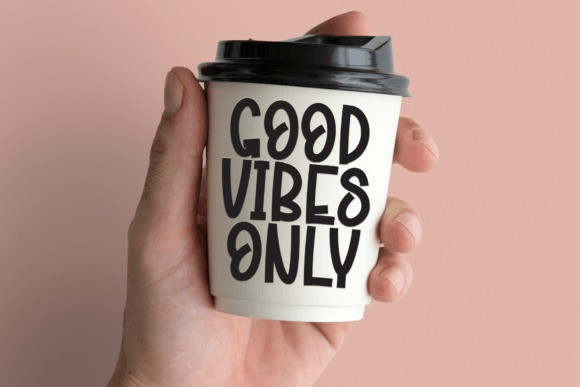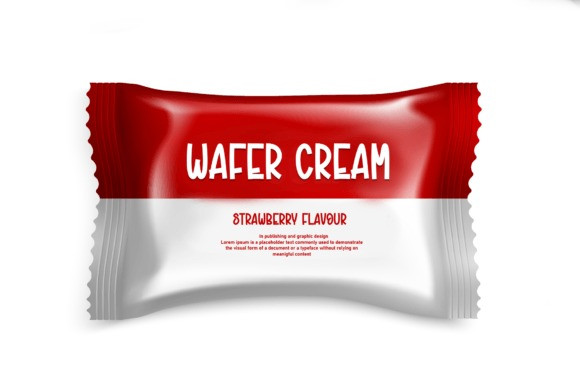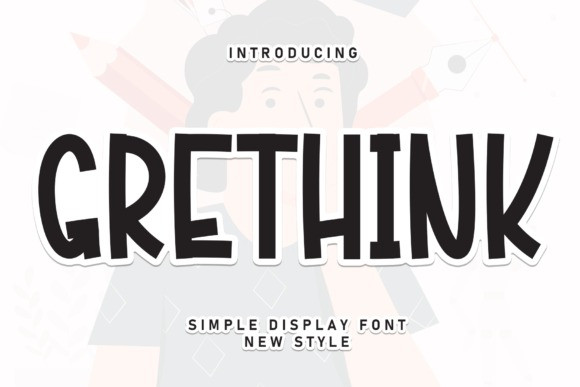
Grethink Playful Font
Grethink Playful font, this is a cute and friendly handwritten display font. Cute and fun, this font is ideal for writing wedding invitations, cards or any other design that could use a little fun!